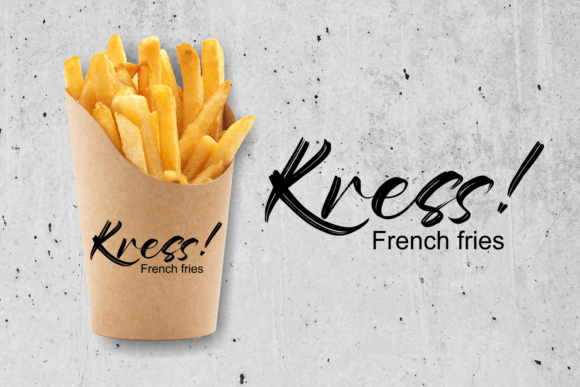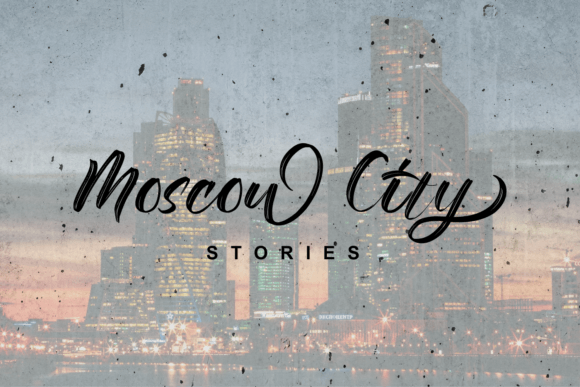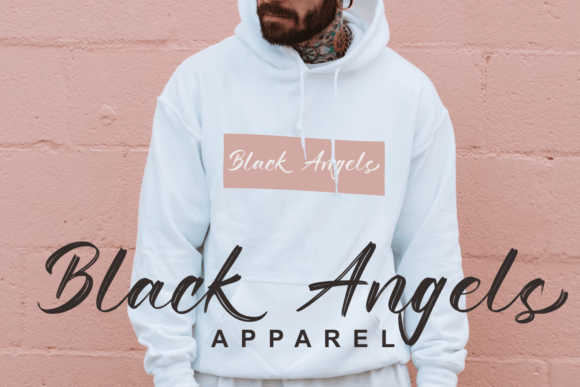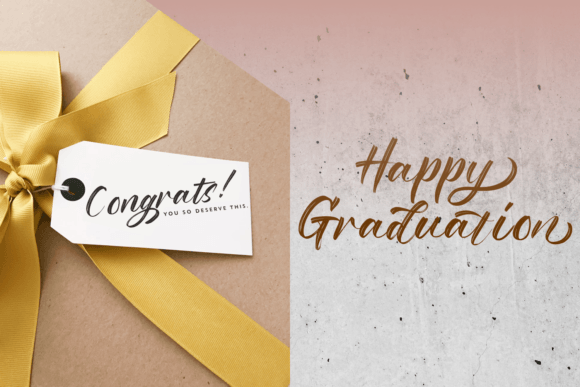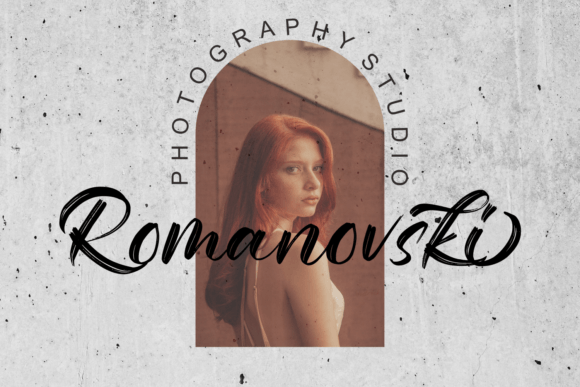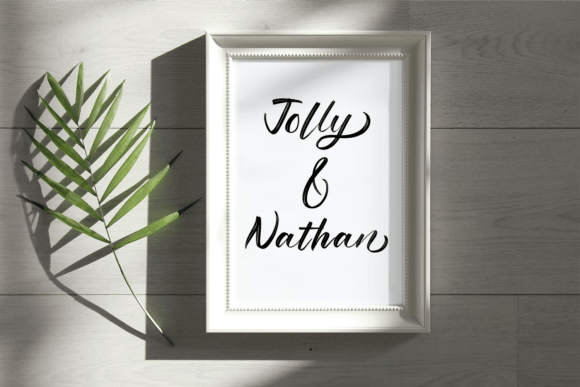
Introduction to Raqillas Font
Have you ever been working on a creative project and struggled to find the perfect font to convey your message? The moment of truth arrives when you finally stumble upon that elusive font that elevates your design to the next level. For designers, finding a high-quality font that perfectly captures the essence of their vision is crucial to the success of their project.
That’s where Raqillas Font comes in – a modern rough handwritten font with original dry brush imperfections, and a highly bouncy baseline. Crafted to be simple and straightforward yet unobtrusive, this versatile font is ideal for a wide range of applications, from logos and product packaging to social media and greeting cards.
Key Features of Raqillas Font
- Raqillas Font is a high-quality, free design resource ideal for creative projects, featuring a unique and modern design.
- Available in a transparent background, allowing for seamless integration into various design elements.
- Includes 5 different font styles, each with its own distinct characteristics, making it a versatile design resource.
- Features a high-resolution design, with a minimum resolution of 300 DPI, making it suitable for print and digital applications.
- The font is designed to be highly legible, with clear and crisp letterforms, making it perfect for body text and titles.
- Each font style includes a comprehensive character set, including uppercase and lowercase letters, numbers, and punctuation marks.
Honest Review: Raqillas Font
I recently had the chance to work with Raqillas Font on a creative project and I must say it’s been a game-changer. The high quality of this font is truly impressive, making it an ideal design resource for any serious designer.
Here are some things that work well with Raqillas Font:
- Highly customizable: Raqillas Font can be easily adjusted to fit any design style or theme.
- Unique and creative: This font adds a touch of personality to any project, making it stand out from the crowd.
- Wide range of applications: Raqillas Font can be used for both digital and print projects, making it a versatile design resource.
While Raqillas Font is an excellent choice, I did encounter some limitations:
- Limited font sizes: The font may not be available in as many sizes as some other fonts on the market.
- No web font option: Raqillas Font is not available as a web font, which may be a drawback for designers who need to use it online.
Overall, I’m impressed with Raqillas Font and would highly recommend it to designers looking for a high-quality, creative font for their next project.
The Raqillas Font is ideal for creating eye-catching headings, titles, and logos. Its transparent background makes it perfect for overlaying on images or using as a background element.
To get the most out of the Raqillas Font, use it in conjunction with other high-quality design resources. Experiment with different font sizes, colors, and effects to create a unique and visually appealing design.